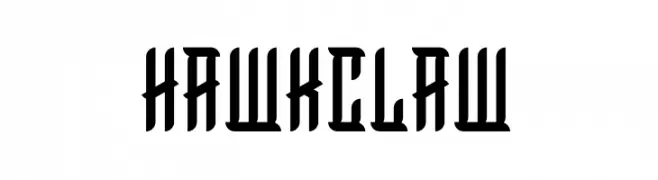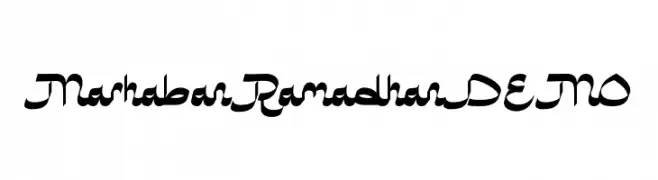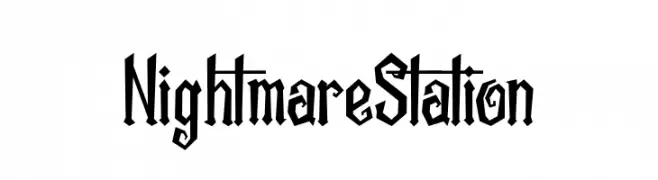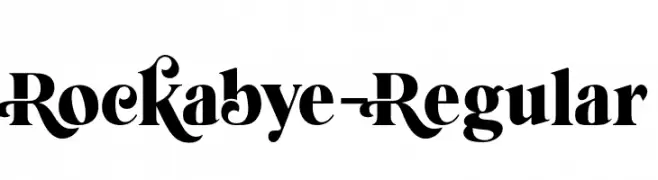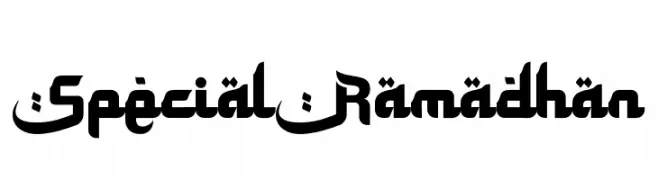
A bold, gothic-inspired font with sharp, angular lines and a dramatic style.
A bold, gothic-inspired font with sharp, angular lines and dramatic curves.
A bold, decorative font with calligraphic influences and intricate dot patterns.
A bold, calligraphic font with expressive, flowing characters.
A playful, bold handwritten font with a lively and energetic style.
A sophisticated script font with flowing, ornate letters and elegant swashes.
A bold, gothic-inspired font with sharp, angular lines and strong vertical emphasis.
A bold, gothic-inspired font with sharp, jagged edges and dynamic styling.
A bold, gothic font with sharp, angular lines and dramatic serifs.
A bold, high-contrast serif font with dramatic strokes and elegant serifs.